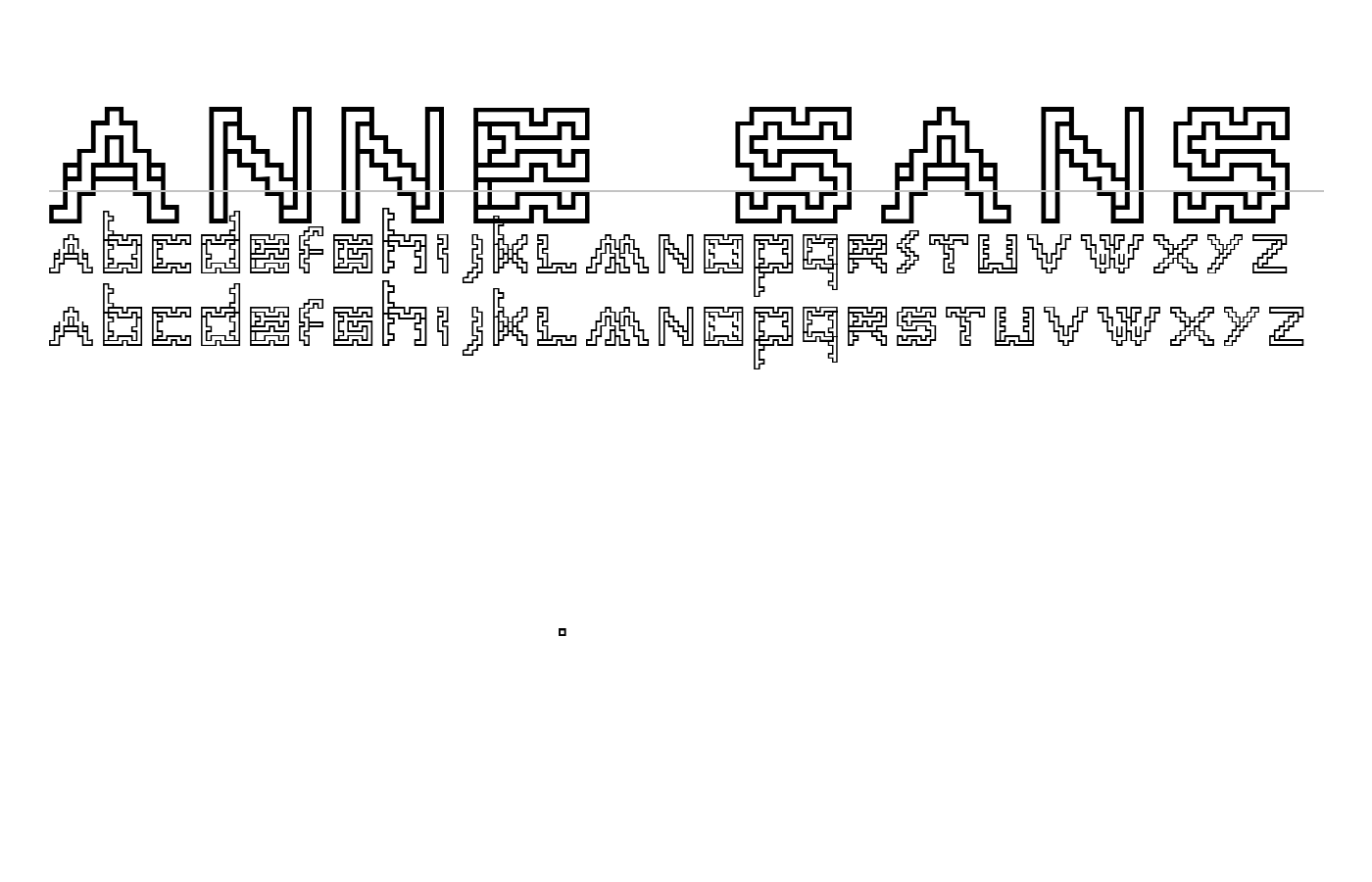
Anne Sans is a unique and modern sans serif font characterized by its pixelated, blocky style with sharp, stepped edges that give it a digital and futuristic feel. Its geometric construction and outlined strokes make it ideal for creative projects seeking a tech-inspired or retro video game aesthetic, perfect for headlines, logos, and digital artwork where a bold, eye-catching impact is desired.
Anne sans Font